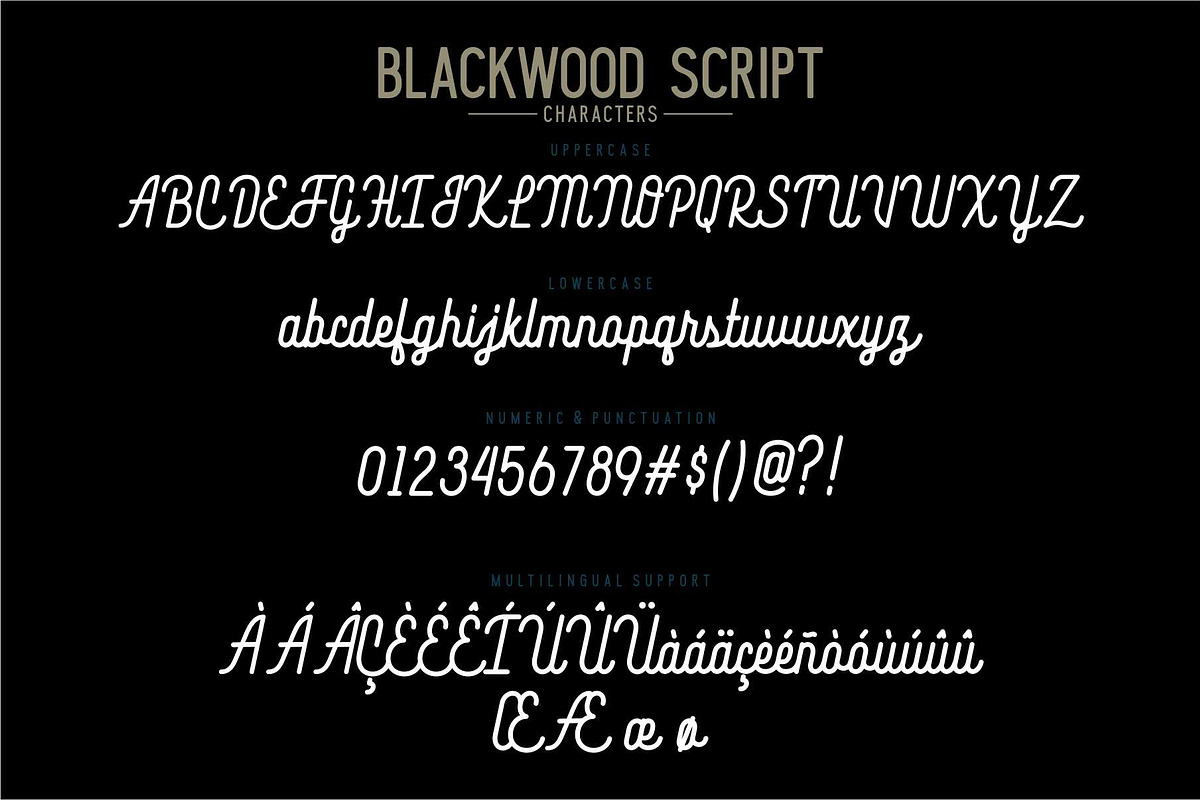
Blacklwood
Blackwood Typeface are san serif font and script font also clean and rough style font. Blackwood comes with 16 fonts, so you can combine them. The rounded edges makes Blackwood not too formal, but it can still be nice for your logo design, poster design, T-Shirt design, branding, badge, name card, etc.
- Character A - Z
- Numeric & Punctuation